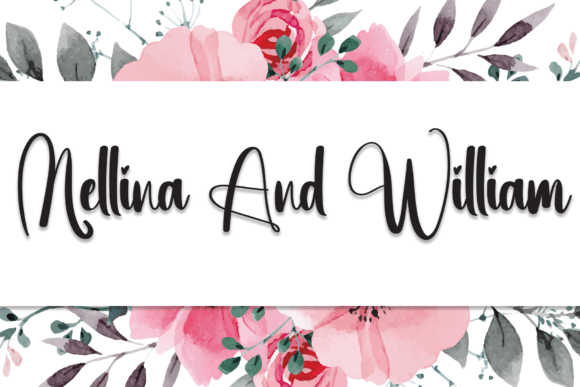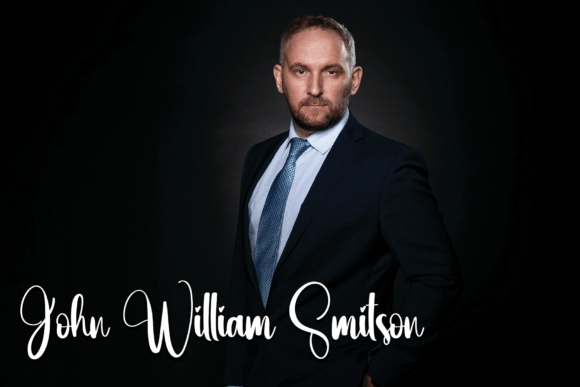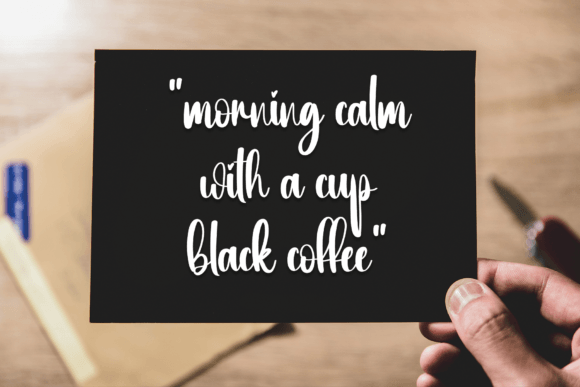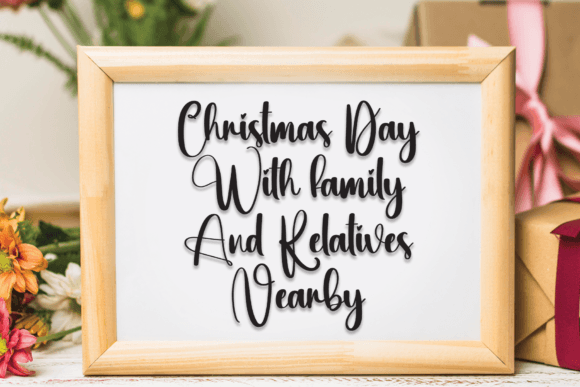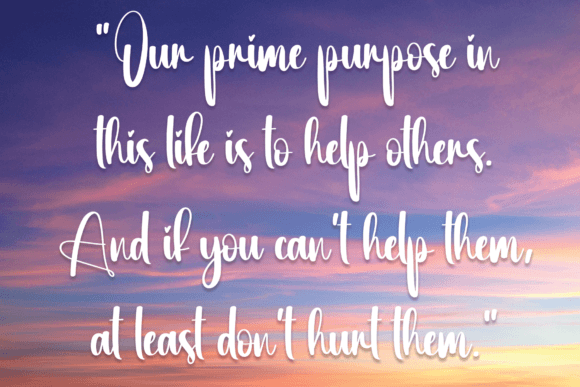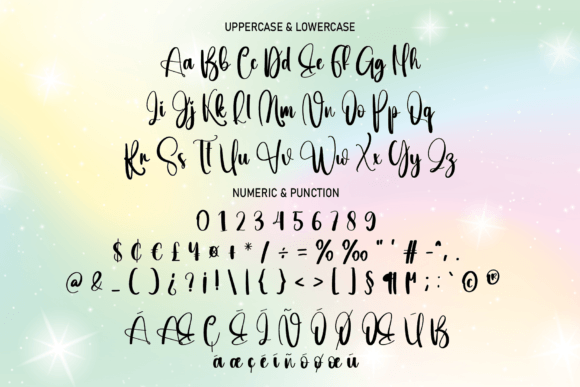
Introducing Another Font: Elevate Your Designs with Elegant Handwriting
In the world of design, fonts play a crucial role in conveying the tone and personality of a project. For designers and crafters looking to add a touch of elegance and sophistication to their work, Another Font is an excellent choice. Another’s latest style letters are perfect for a wide range of applications, from wall displays and wedding invitations to social media post logos, advertisements, product packaging, and more.
What Makes Another Font Special?
Another Font boasts a unique, handwriting-inspired style that sets it apart from more traditional fonts. Its elegant letters are carefully crafted to add a touch of personality to any design, making it ideal for projects that require a bit of flair. Whether you’re working on a wedding invitation, a product label, or a social media post, Another Font is sure to make your design stand out.
One of the best things about Another Font is its versatility. Its beautiful, flowing letters can be used in a wide range of applications, including:
- Wall displays: Add a touch of elegance to your wall art with Another Font.
- Wedding invitations: Make your wedding invitations truly special with this beautiful font.
- Social media post logos: Elevate your social media presence with Another Font’s stylish letters.
- Advertisements: Grab attention with this eye-catching font.
- Product packaging: Add a touch of sophistication to your product packaging.
- Product designs: Create stunning product designs with Another Font.
- Labels: Make your labels stand out with this elegant font.
- Photography: Add a watermark or overlay text to your photos with Another Font.
- Invitations: Create beautiful invitations for any occasion.
- Stationery: Add a touch of elegance to your stationery with Another Font.
Why Designers and Crafters Love Another Font
Designers and crafters love Another Font for its unique style and versatility. Here are just a few reasons why:
- Elegant and sophisticated: Another Font adds a touch of elegance and sophistication to any design.
- Easy to read: Despite its elegant style, Another Font is easy to read, making it perfect for body text and headlines.
- Highly versatile: Another Font can be used in a wide range of applications, from digital designs to print materials.
- Unique style: Another Font’s unique style sets it apart from more traditional fonts, making it perfect for designers and crafters looking to add a touch of personality to their work.
Tips for Using Another Font
Here are a few tips for using Another Font in your designs:
- Use it sparingly: Another Font is perfect for headlines and titles, but use it sparingly to avoid overwhelming your design.
- Pair it with other fonts: Pair Another Font with other fonts to create a unique and interesting design.
- Pay attention to spacing: Pay attention to spacing and kerning to ensure your text is easy to read.
Another Font is a beautiful, elegant font that’s perfect for designers and crafters looking to add a touch of sophistication to their work. Its versatility and unique style make it ideal for a wide range of applications, from wall displays and wedding invitations to social media post logos and product packaging. With its easy-to-read letters and highly versatile style, Another Font is sure to become a favorite in your design toolkit.